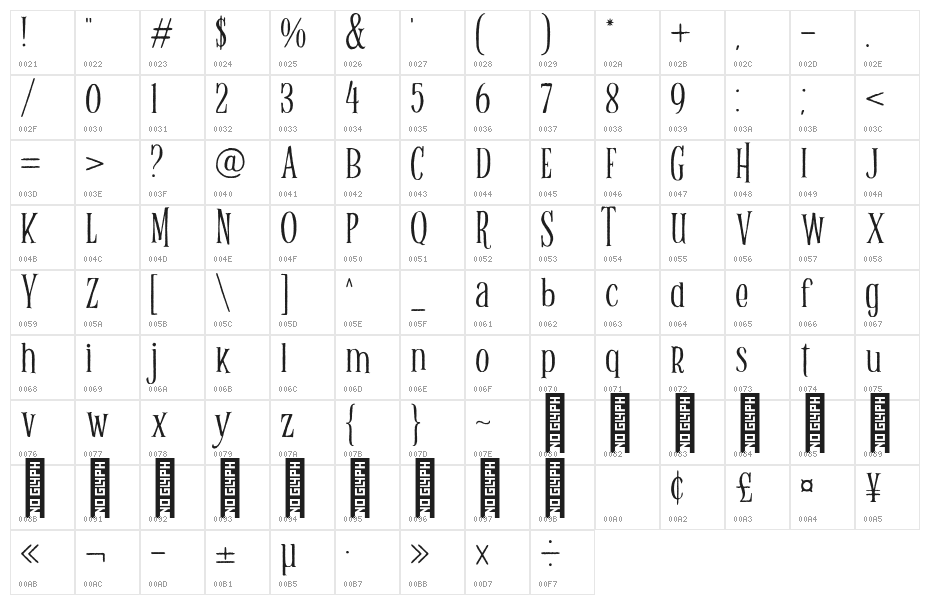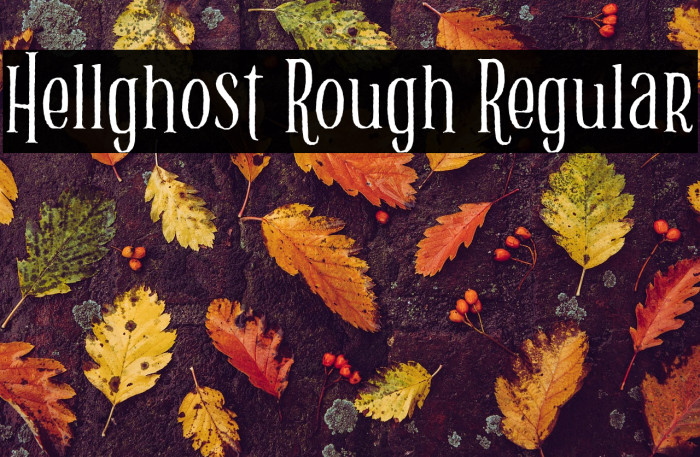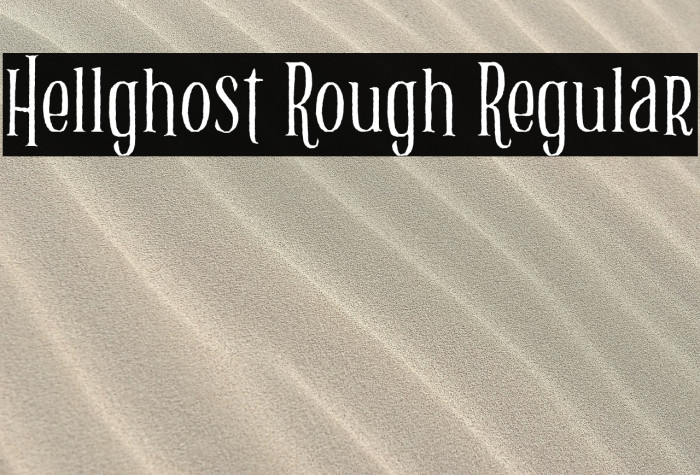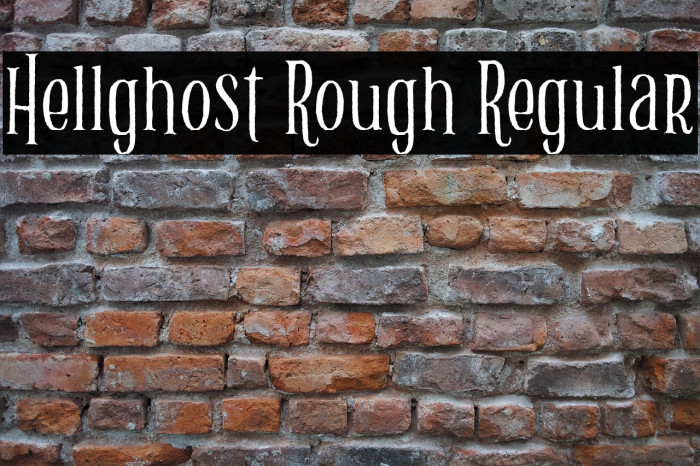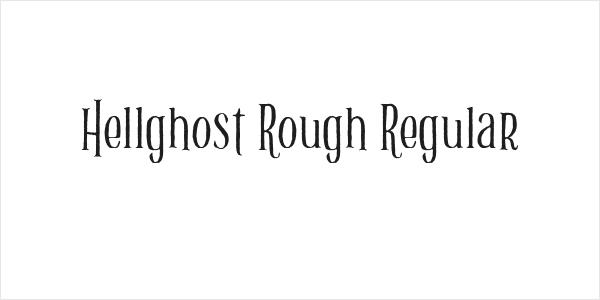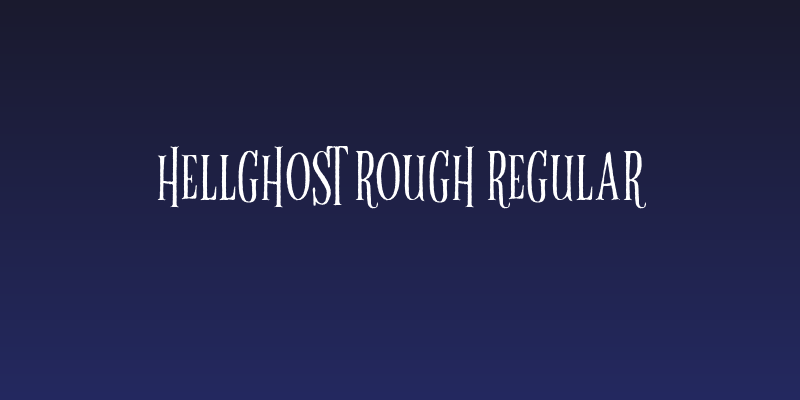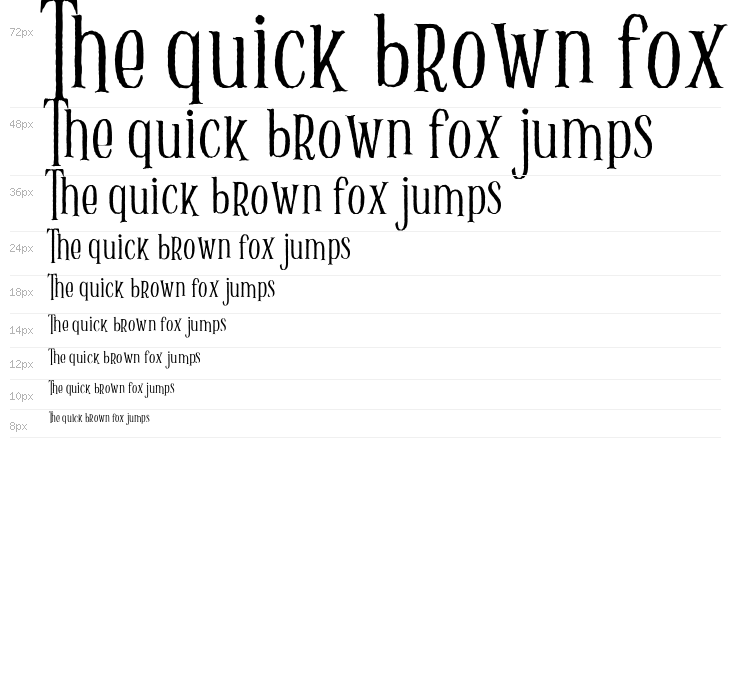
Hellghost Rough Regular Font
Hellghost Rough Regular Description
This font features a rough, hand-drawn aesthetic with irregular edges and a slightly distressed appearance, giving it a unique, vintage feel. The uppercase and lowercase letters are tall and narrow, with a slight slant that adds to the dynamic, energetic look. The numbers and special characters maintain this style, providing a cohesive appearance across all glyphs. The font's uneven strokes and rough texture make it ideal for projects that require a rustic or handcrafted touch. Its distinctive style is both eye-catching and versatile, suitable for a variety of creative applications.
| Width | Condensed |
| Overall Style | Vintage |
| Proposed Projects | Ideal for posters, logos, branding, packaging, and any project requiring a rustic or handcrafted aesthetic. |